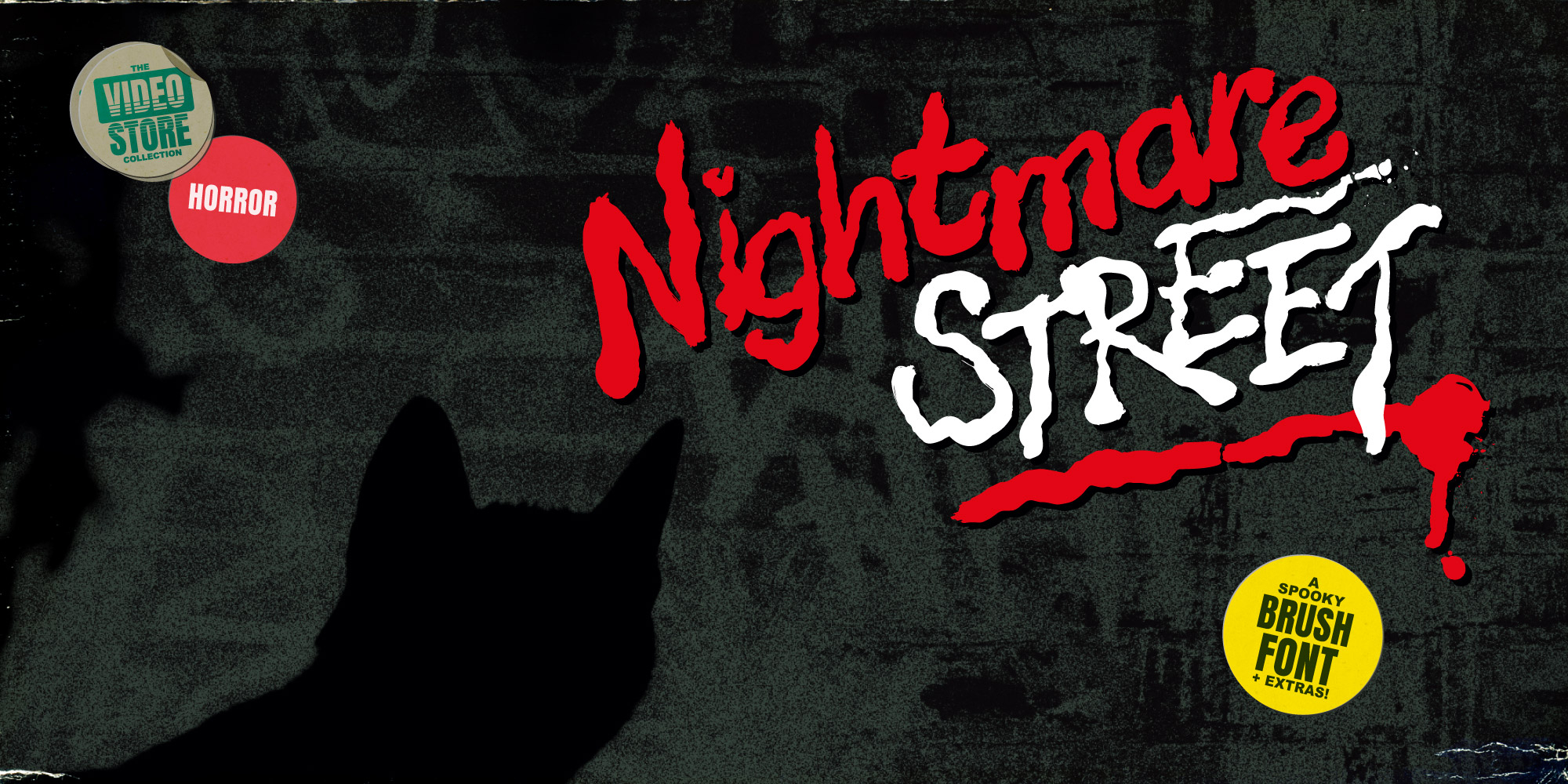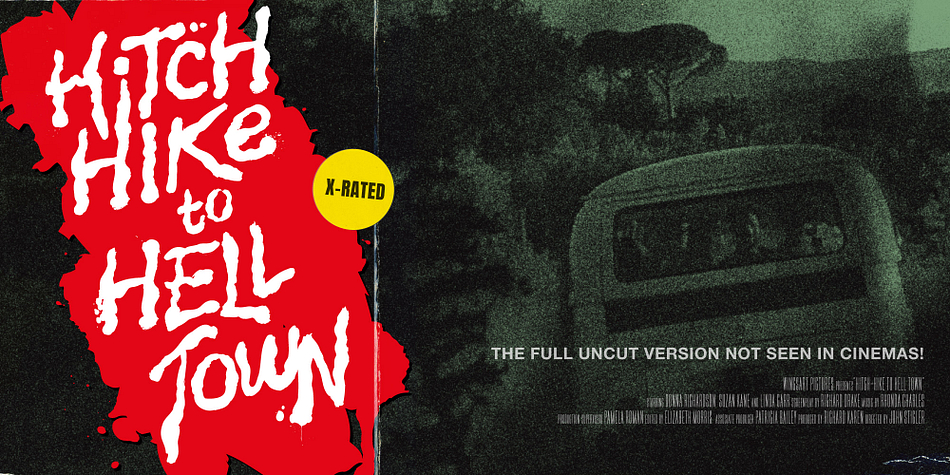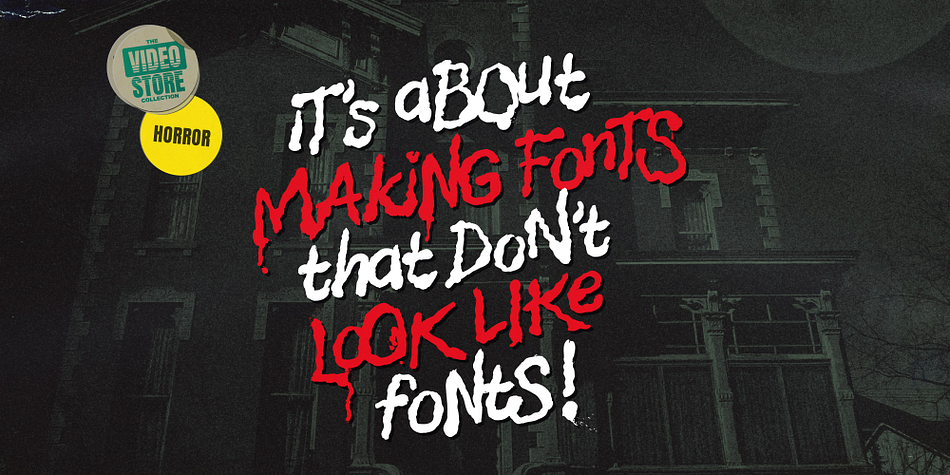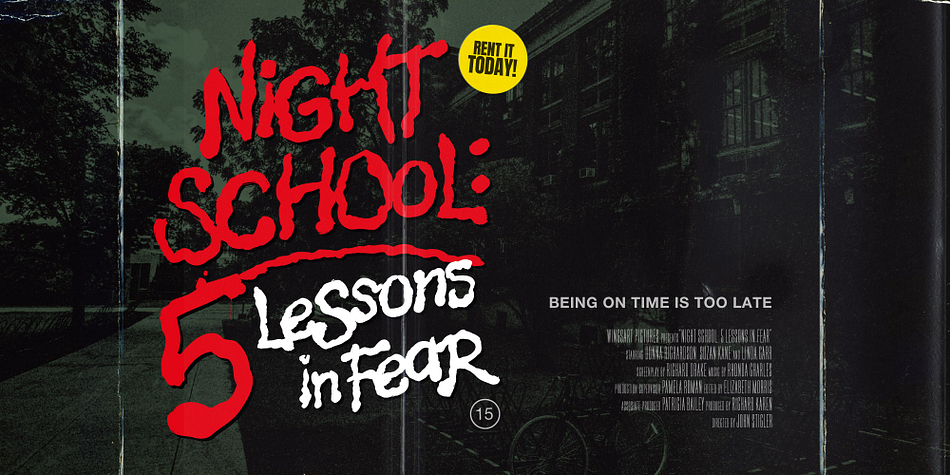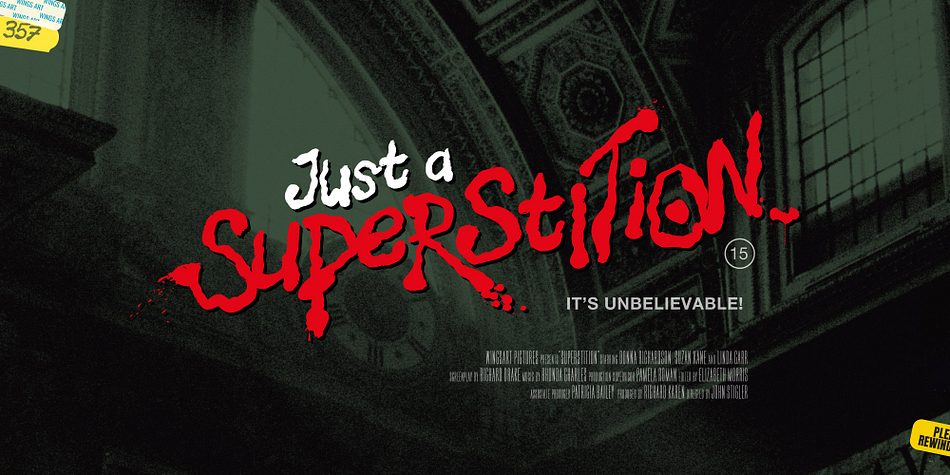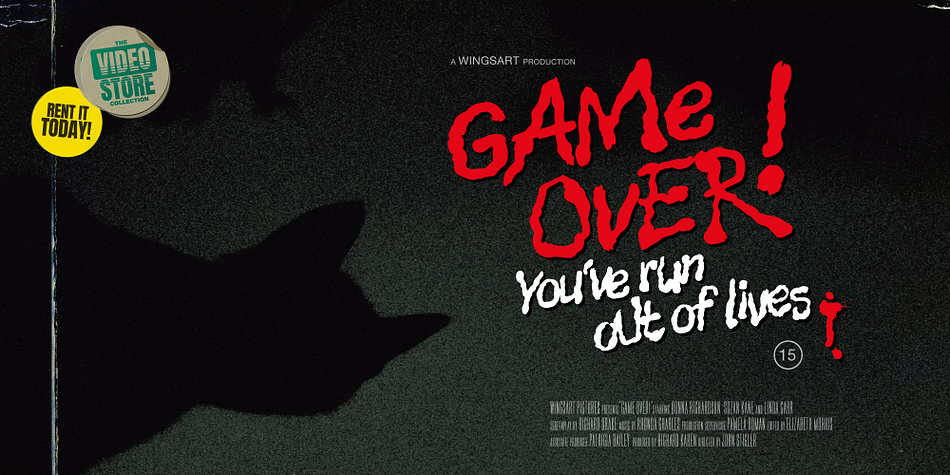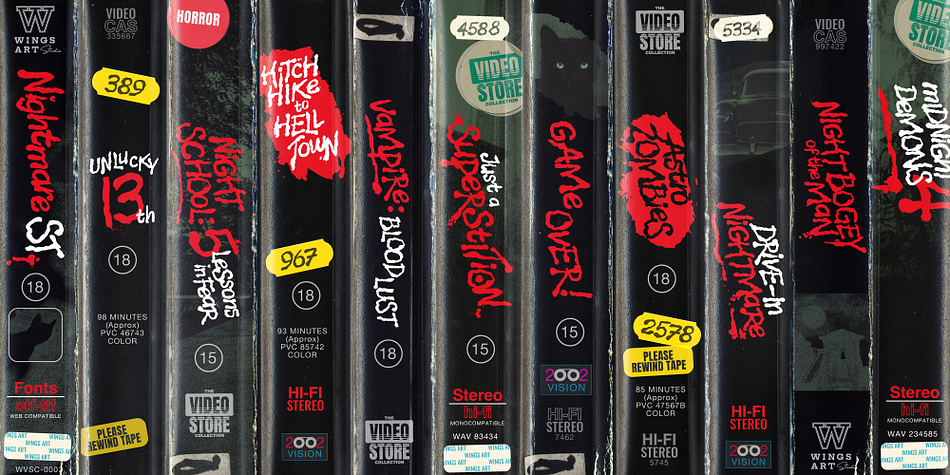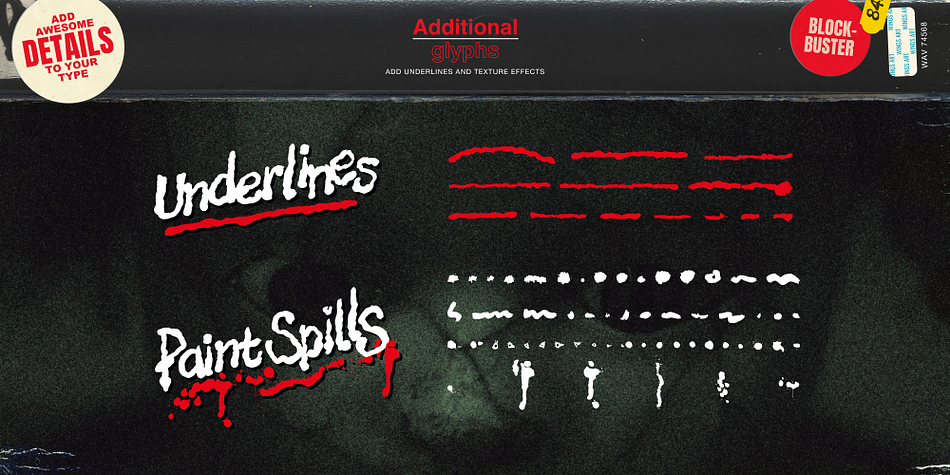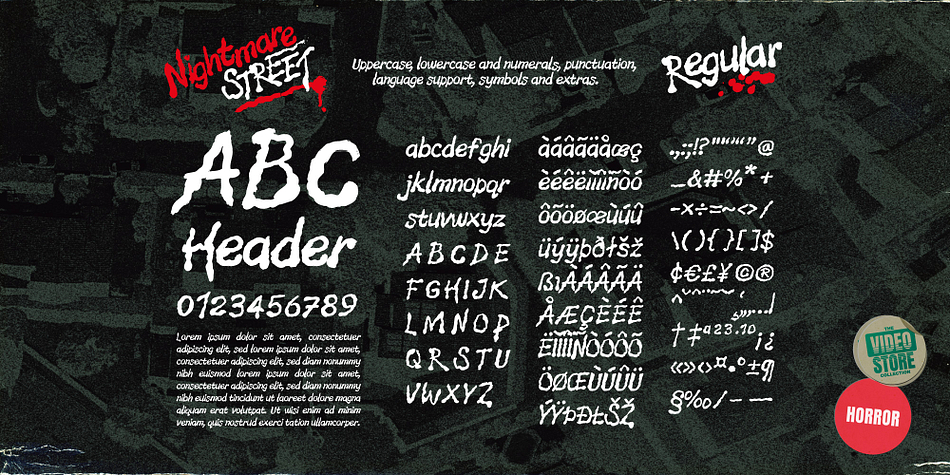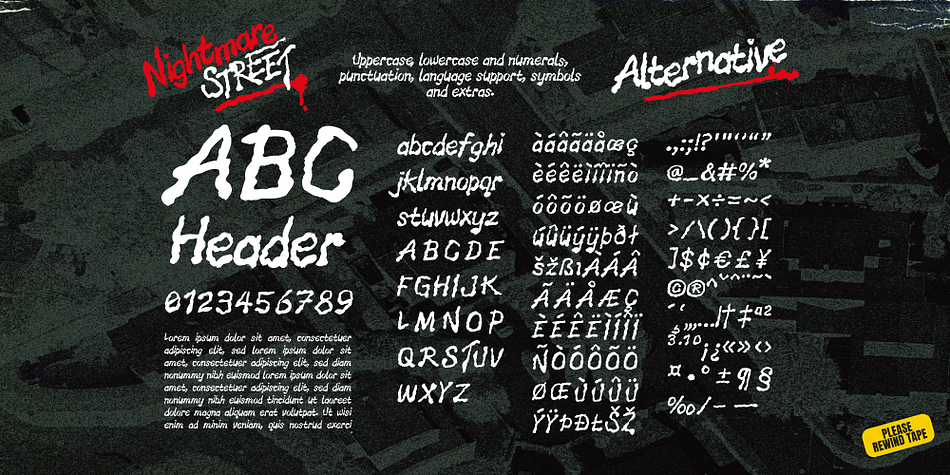
Nightmare Street
Nightmare Street is a hand drawn and dingbat font family. This typeface has three styles and was published by Wingsart Studio.
Take a midnight stroll if you dare through the shadowy terrace of terror, on Nightmare Street!
A bloodcurdling design supplied in two styles with additional underlines and paint spills, Nightmare Street is an 80s-inspired horror font straight from the video store. It’s the perfect choice when you want a hand-made look for your movie posters and trailers, album covers, books, and Halloween promos.
This font includes complete uppercase and lowercase characters plus punctuation, numerals, and language support. It also comes with a full set of alternatives, ensuring that you’ll never have to repeat your e’s or t’s for a more convincing and authentic hand-drawn look. Check out the visuals for more details and usage examples.